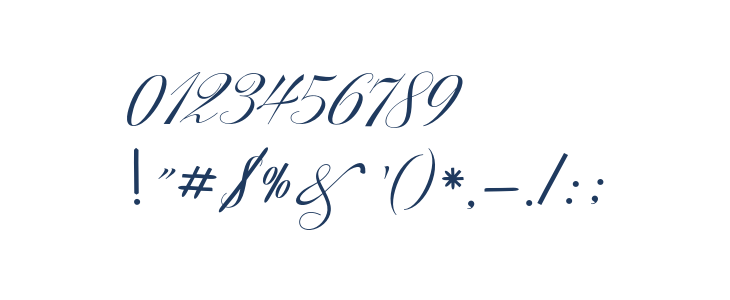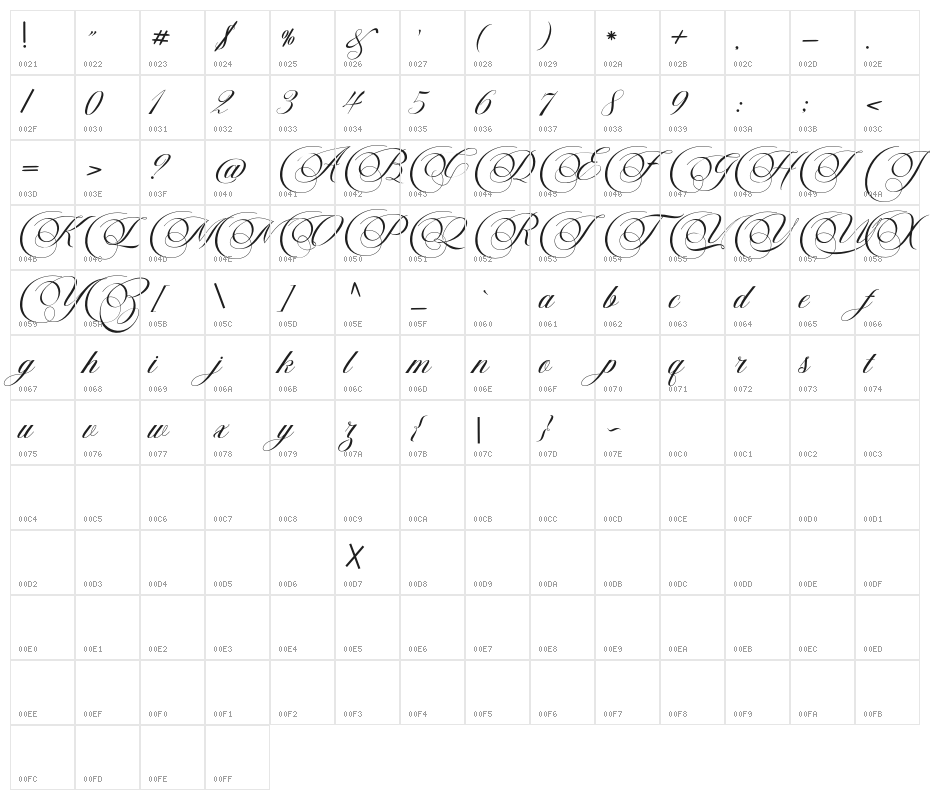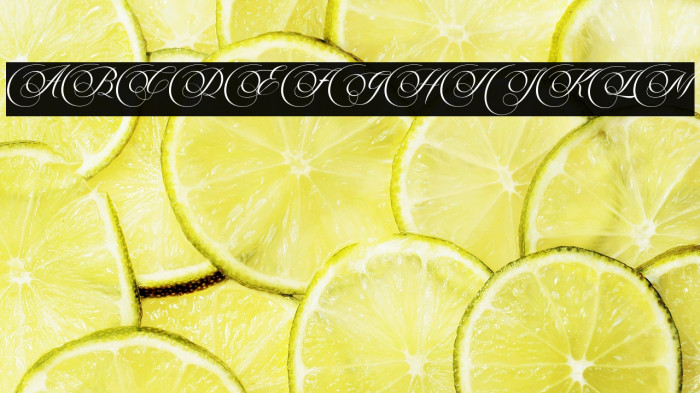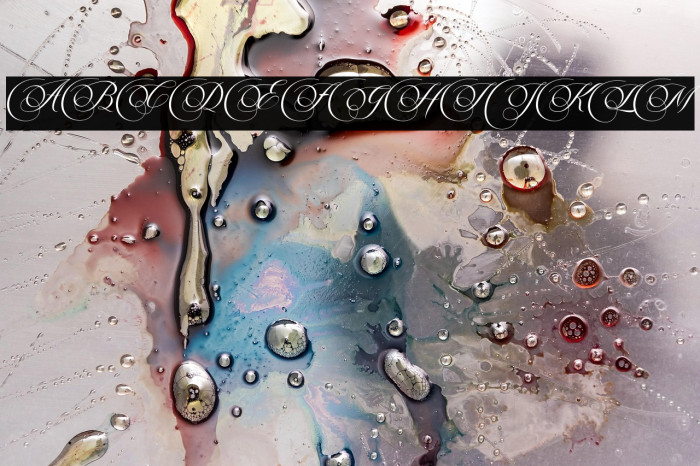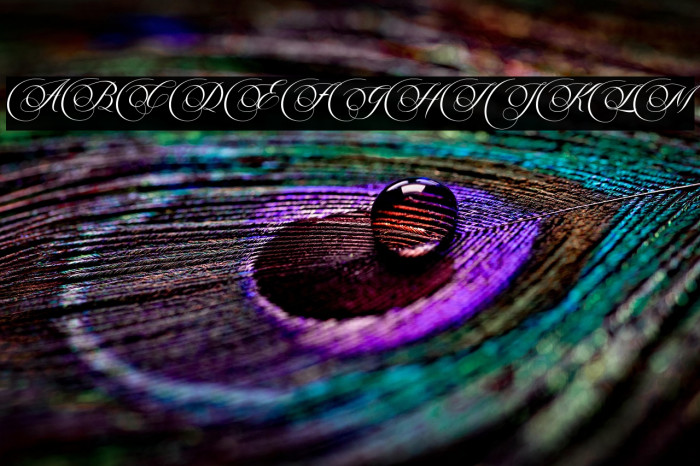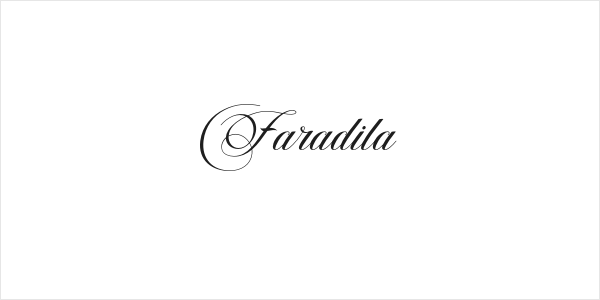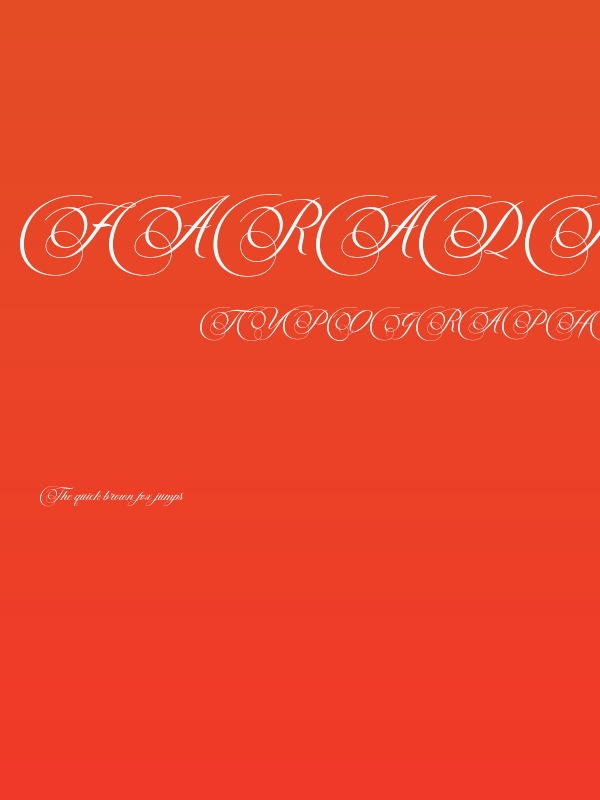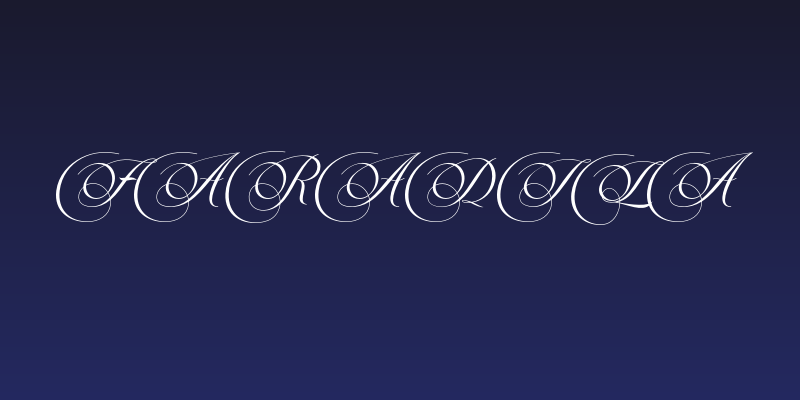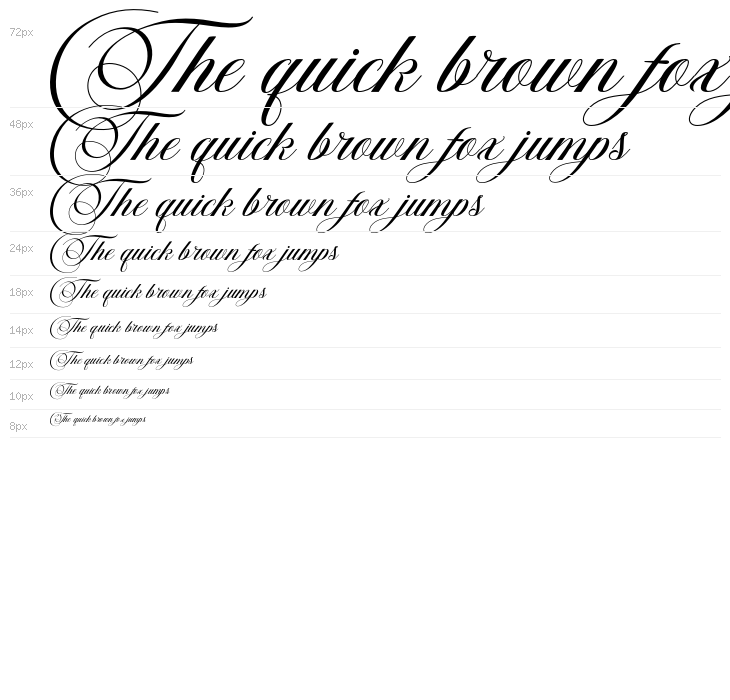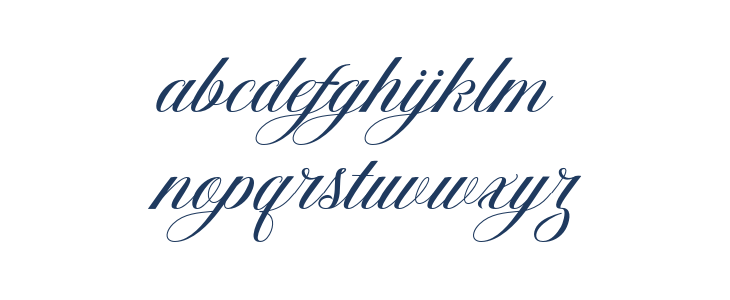
Faradila Font
Faradila Description
This elegant script font features flowing, interconnected letters with a classic calligraphic style. The uppercase letters are adorned with intricate swirls and loops, adding a touch of sophistication and grace. The lowercase letters maintain a smooth, cursive flow, making it ideal for formal invitations or branding that requires a touch of elegance. The numerals are designed with the same fluidity, ensuring consistency across all characters. Special characters are included, each crafted with the same attention to detail, enhancing the font's versatility.
| Proposed Projects | Ideal for wedding invitations, luxury branding, elegant logos, and formal event materials. |